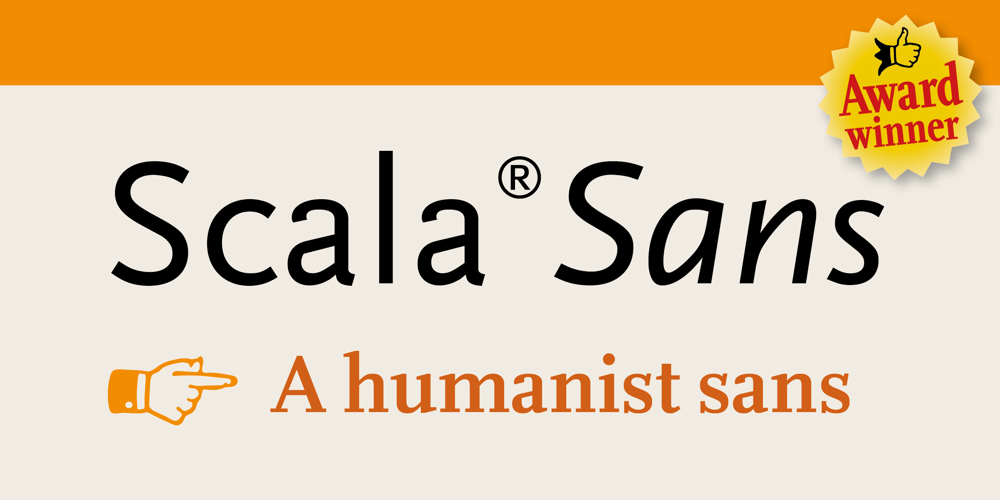
Scala Sans Pro Font Family was designed by Martin Majoor and published by Martin Majoor. Scala Sans Pro contains 10 styles and family package options. The award-winning Scala family (1990-1993) is a worldwide bestseller and has established itself as a ‘classic’ among digital fonts. It was one of the first serious digital text fonts to support small caps, ligatures and different set of numbers. In fact Scala and Scala Sans (1990-1993) are two workhorse-like typefaces sharing a common form principle: the skeletons of both Scala and Scala Sans are identical, therefore they can be combined perfectly. Where many of the modern sans serifs (like Helvetica and Univers) have rather ‘closed’ letter shapes, the same elements in Scala Sans are much more ‘open’. This greatly improves legibility, especially in the smaller point sizes. The italic of Scala Sans is not a slanted version of the roman, but rather a ‘real’ italic.Another part of Scala is very popular among its users: Scala Hands, containing more than one hundred decorative hands and pointers, is included in the Scala fonts and is a free bonus.